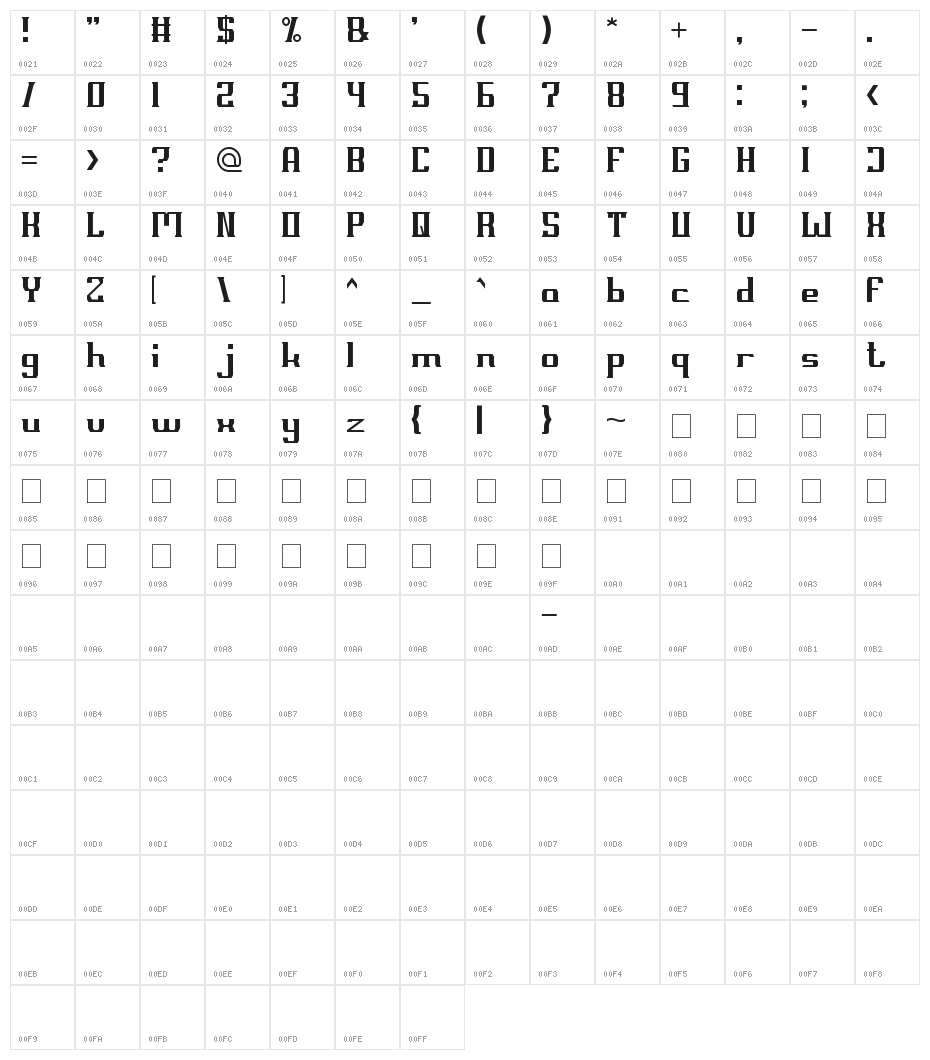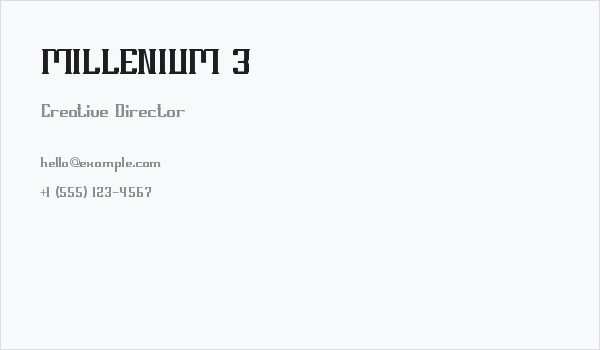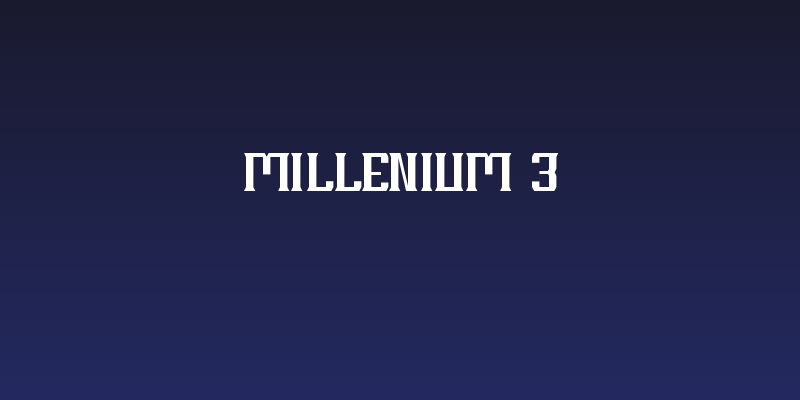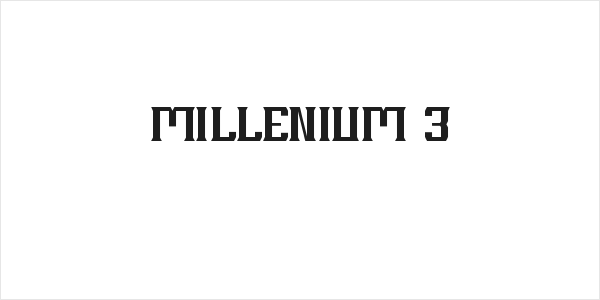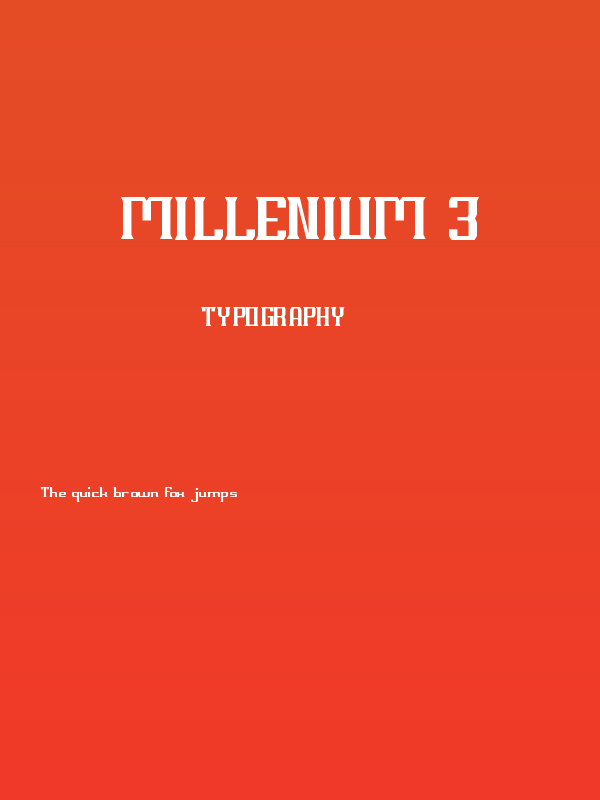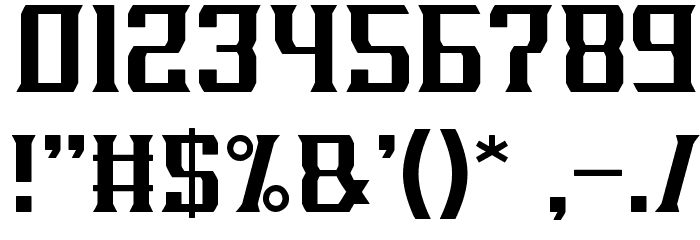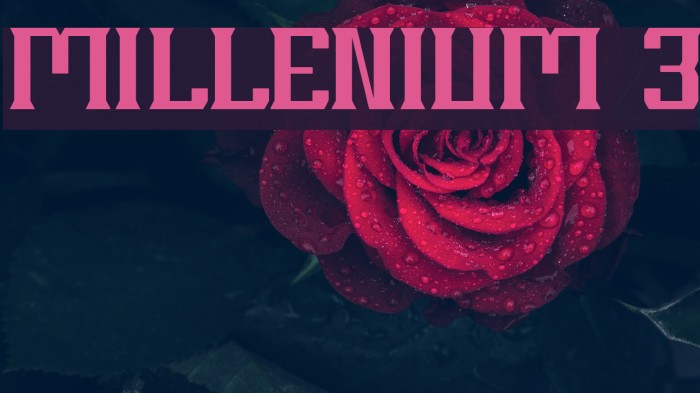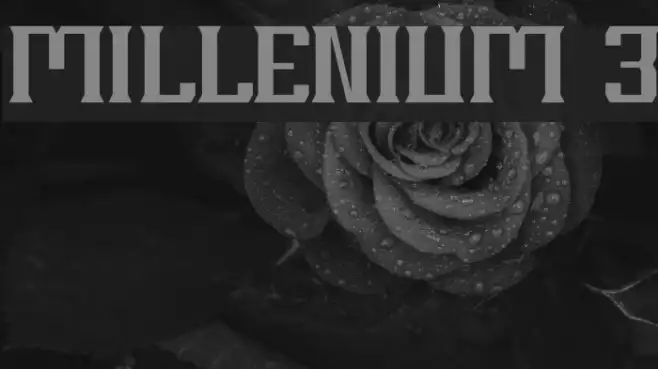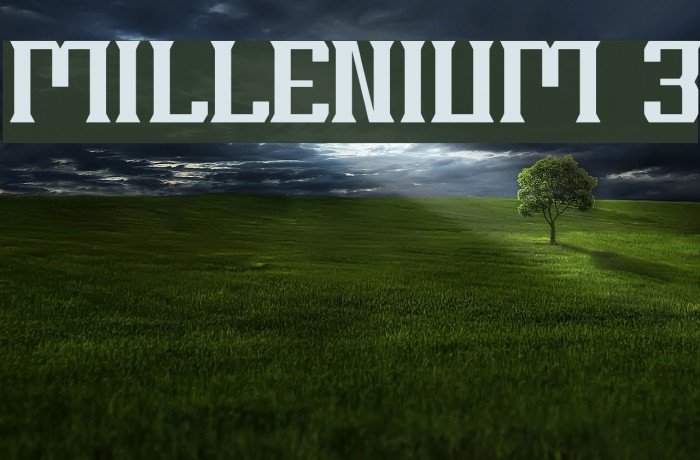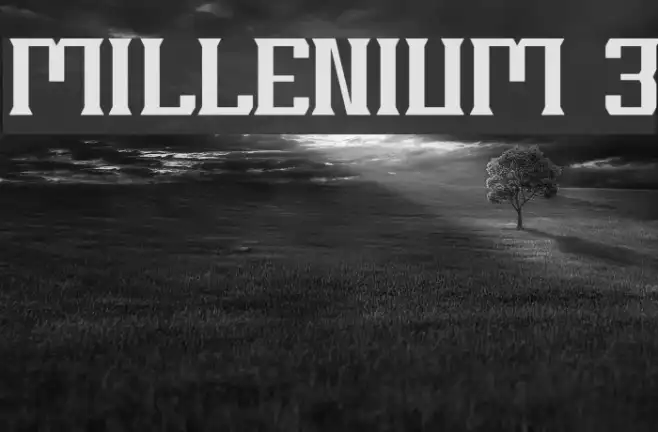
MILLENIUM 3 Font
MILLENIUM 3 Description
This font features a bold, geometric design with strong, angular lines and a futuristic aesthetic. The uppercase letters are particularly striking, with a blocky, industrial feel that suggests strength and modernity. The lowercase letters maintain this theme, offering a cohesive look across all text. Numbers and special characters are designed with the same boldness, ensuring consistency throughout. The font's unique style makes it stand out, with a distinct personality that is both modern and slightly retro, reminiscent of digital or sci-fi themes.
| Proposed Projects | Ideal for projects requiring a modern, tech-inspired look, such as video game titles, sci-fi movie posters, or tech company branding. |